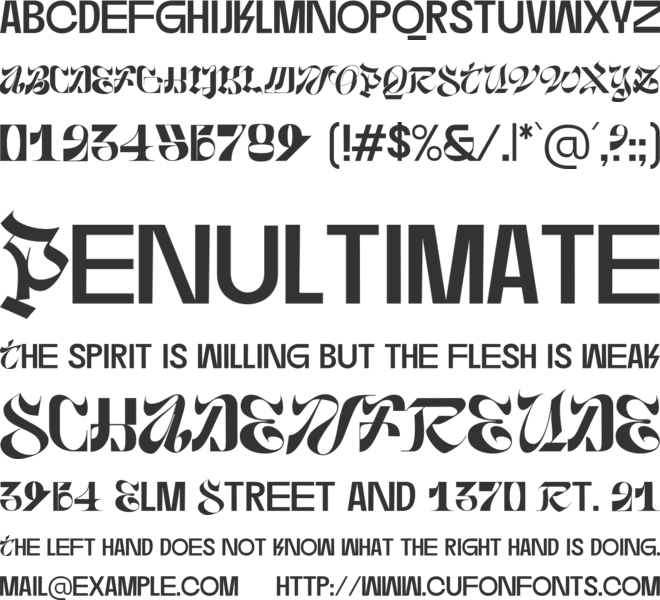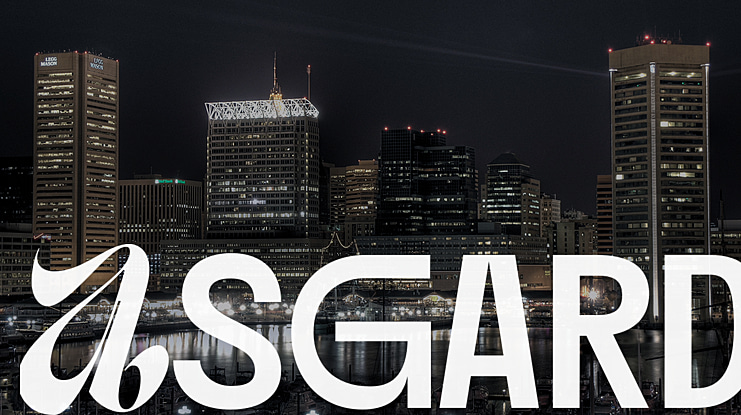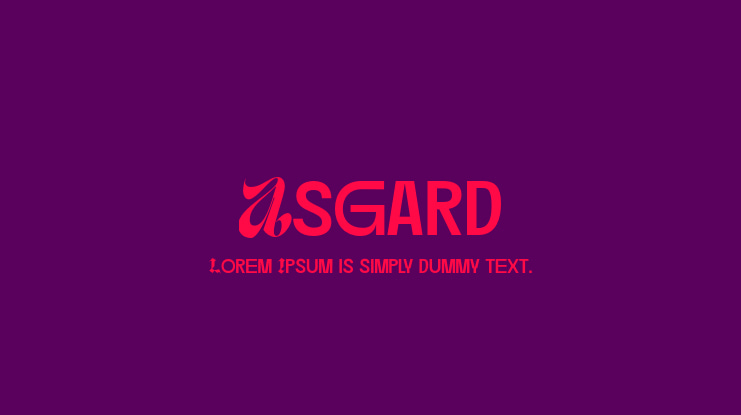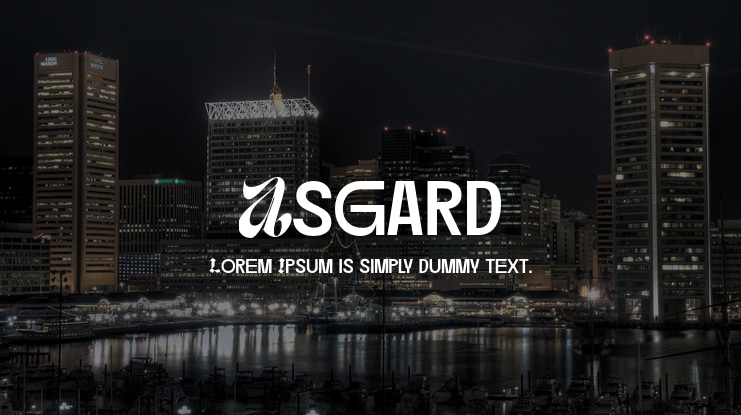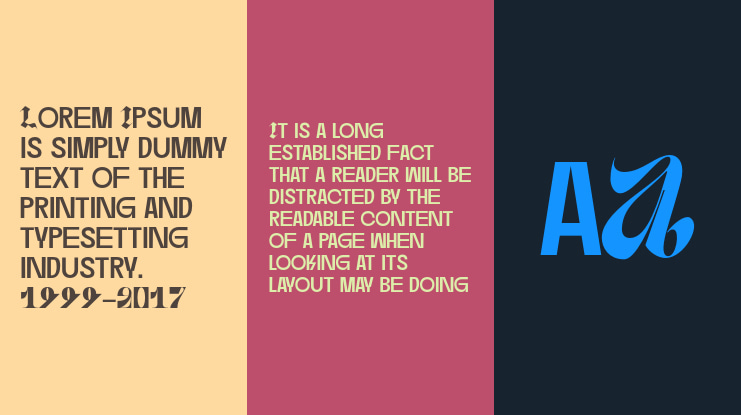
Asgard Font
This font designed by Kijiji Hub is authentic display typeface inspired by classic characters. Sleek and minimalistic, but with a contemporary touch. This font is ideal for a variety of design projects, including poster design, logo design, branding, social media design, book, and magazine design.